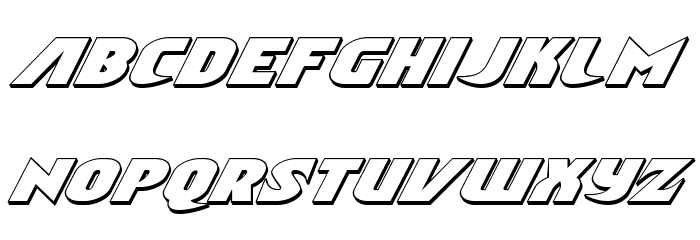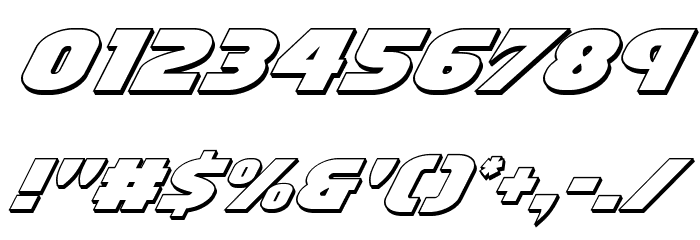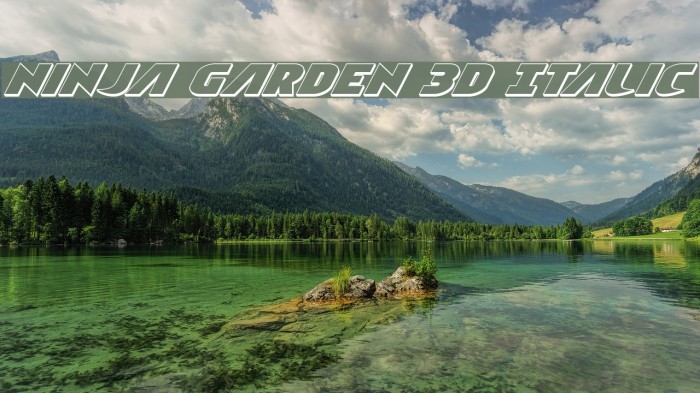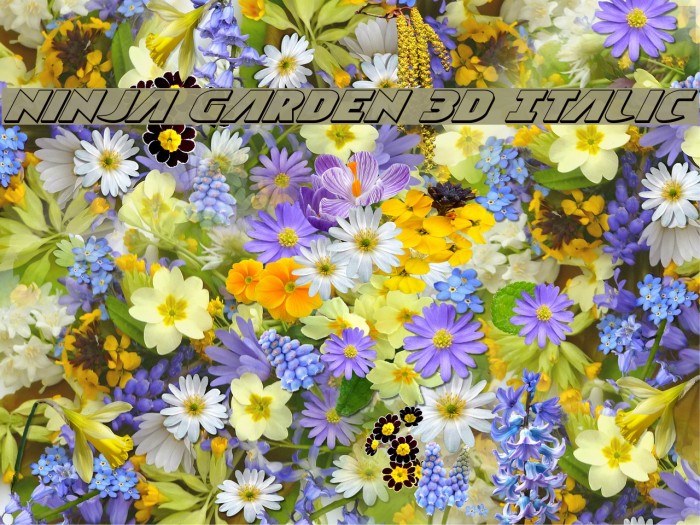
Ninja Garden 3D Italic Font
This font features a bold, three-dimensional style with a strong italic slant, giving it a dynamic and energetic appearance. The characters are outlined, adding depth and a sense of movement. The uppercase and lowercase letters maintain a consistent style, with sharp angles and clean lines that enhance its modern look. The numerals and special characters are designed to match the bold and italicized theme, making them stand out effectively. This font is ideal for projects that require a striking and impactful visual presence.
Bold, 3D italic font with sharp angles and outlined characters.
- Proposed Projects: Ideal for video game titles, sports branding, action movie posters, and dynamic advertising campaigns.